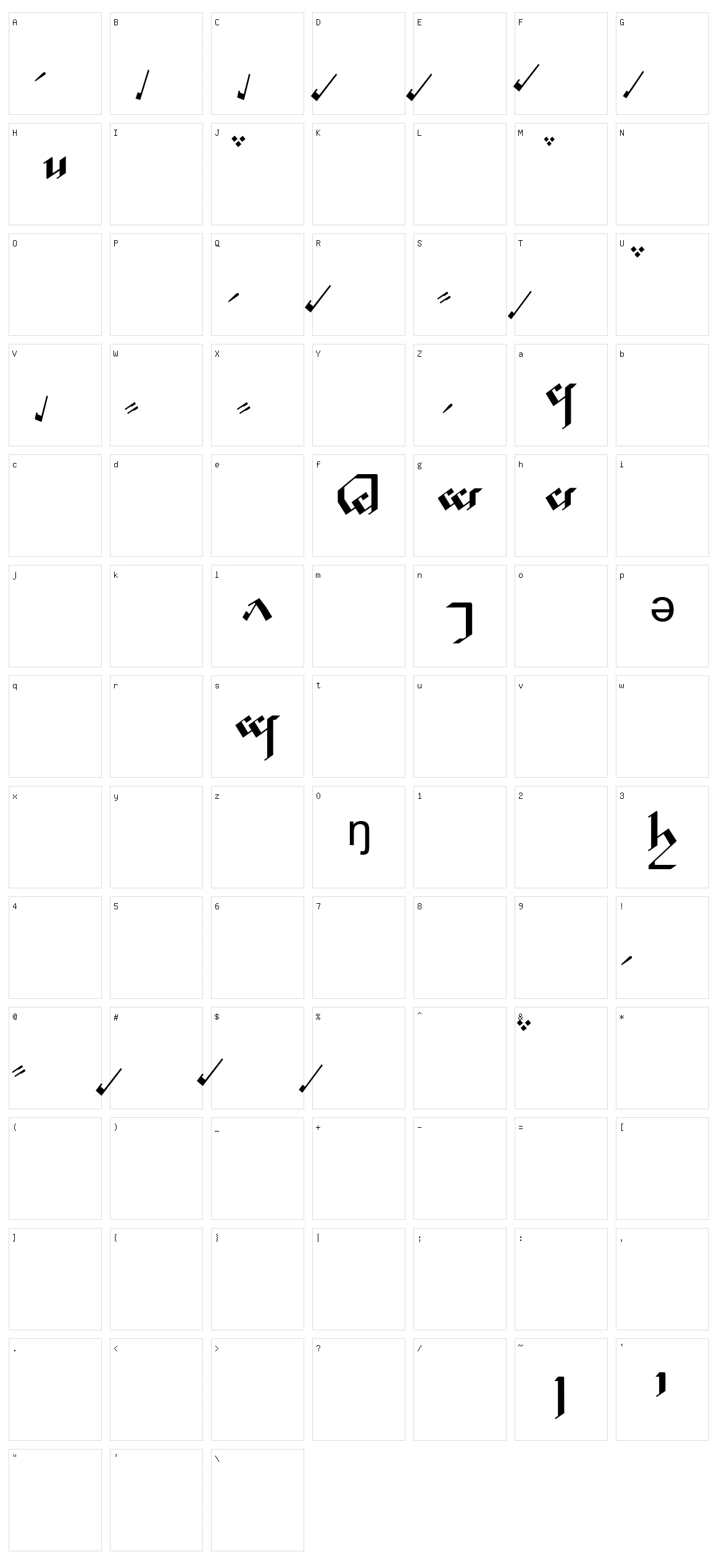
Elvish Tengwar alphabet. They can be used to write Elf language inscriptions
with Windows applications. (The Tengwar alphabet was devised by J.R.R. Tolkien
and used by the Elves to write in their native languages).